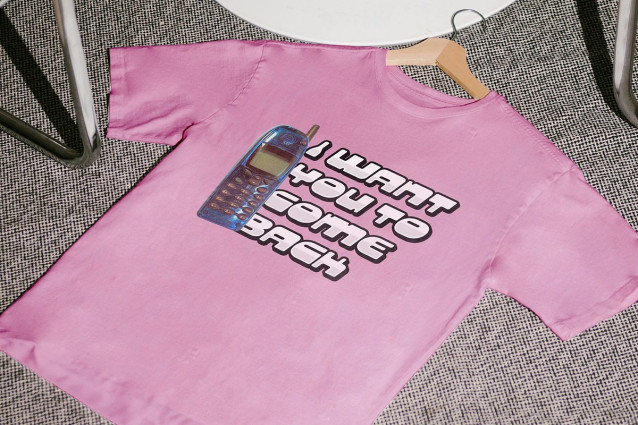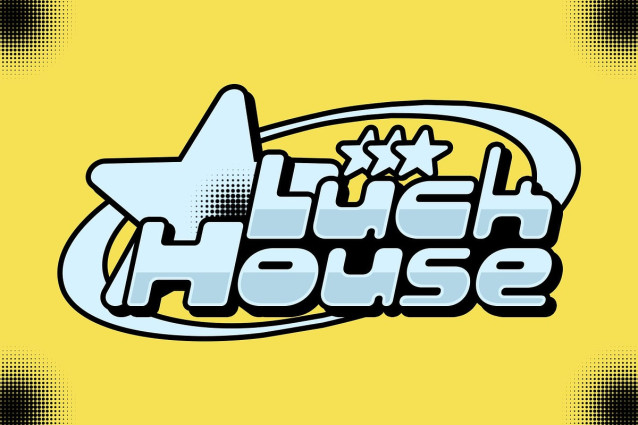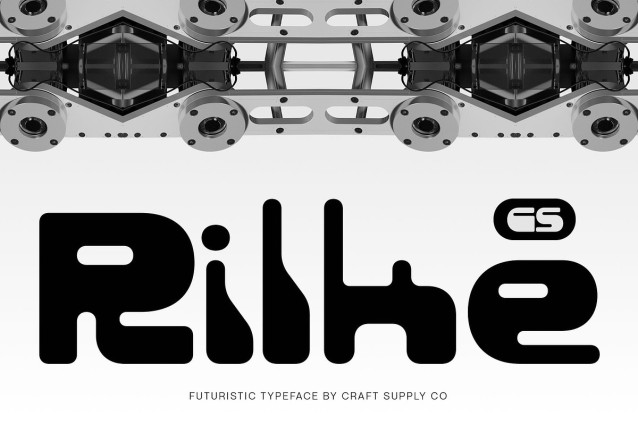
CS Rilke Font
CS Rilke Font is a futuristic display font infused with a Y2K-inspired aesthetic, bringing a bold and stylish edge to modern design. Its sharp structure and contemporary flow make it perfect for projects that want to capture the energy of digital culture and forward-looking creativity.
Bold and Geometric Design With strong, blocky forms and geometric precision, CS Rilke commands attention in any setting. Its structural weight makes it ideal for impactful headlines, powerful logos, and striking layouts. The font’s design reflects both technological advancement and the playful nostalgia of early 2000s aesthetics.
Perfect for 3D and Digital Styles CS Rilke pairs beautifully with 3D treatments, gradients, and digital effects. Its clean yet robust letterforms adapt well to motion graphics, gaming interfaces, and futuristic poster art, giving designs a strong sense of depth and visual power.
Versatile for Modern Projects From posters and music visuals to branding, games, and tech-inspired layouts, CS Rilke delivers flexibility across industries. It’s a font that speaks to innovation and bold expression, making it an essential choice for designers looking to merge technology with creativity.